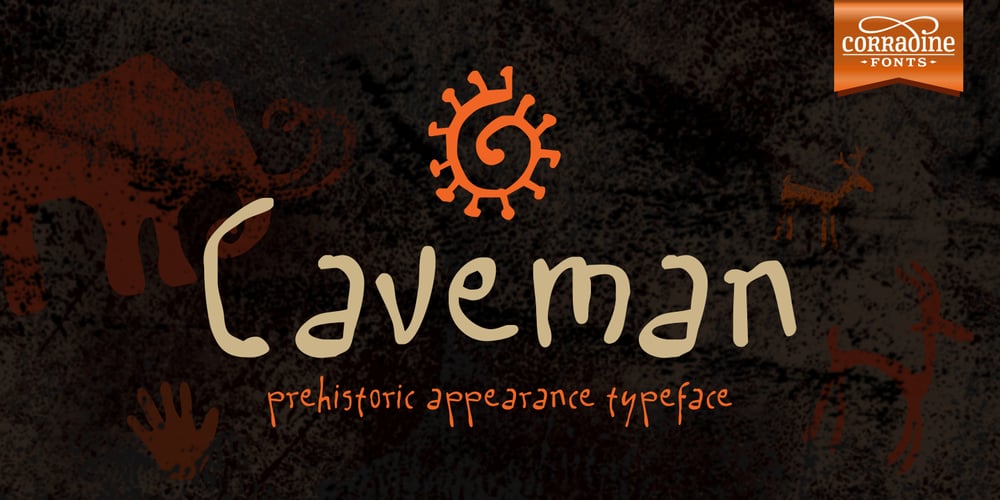
Caveman
Caveman font
Caveman Font Family was designed by Manuel Eduardo Corradine and published by Corradine Fonts. Caveman contains 6 styles and family package options. Caveman is a very rustic font, suggestive of prehistoric cave art when man first learned to draw and to express emotions through painting. It comes in four styles and two sets of very decorative dingbats.